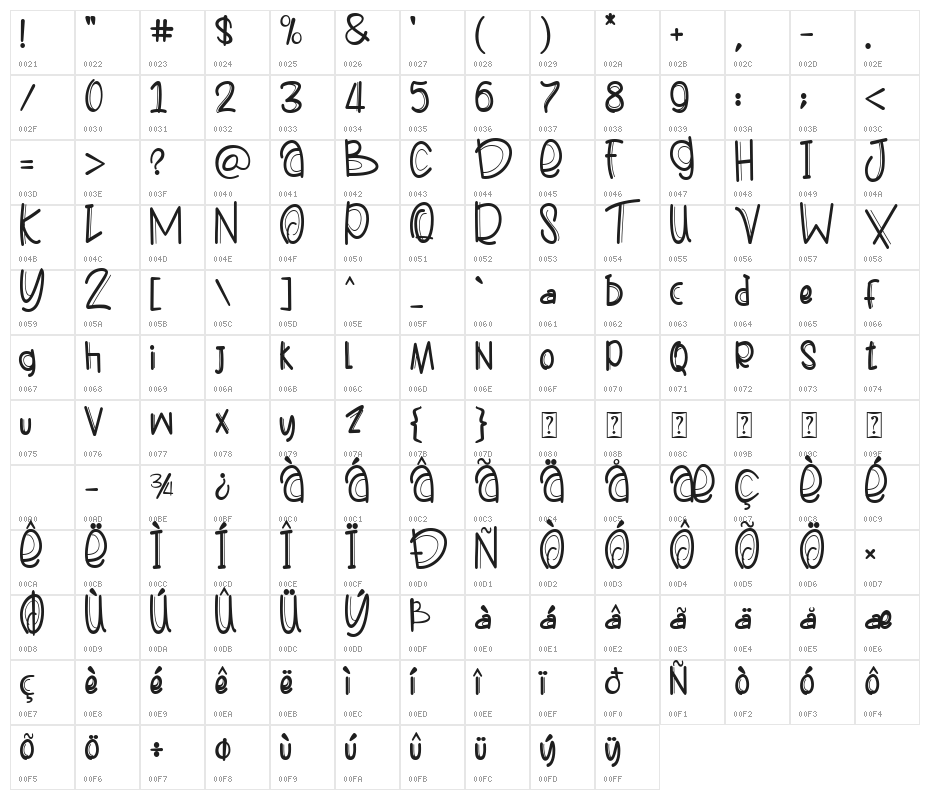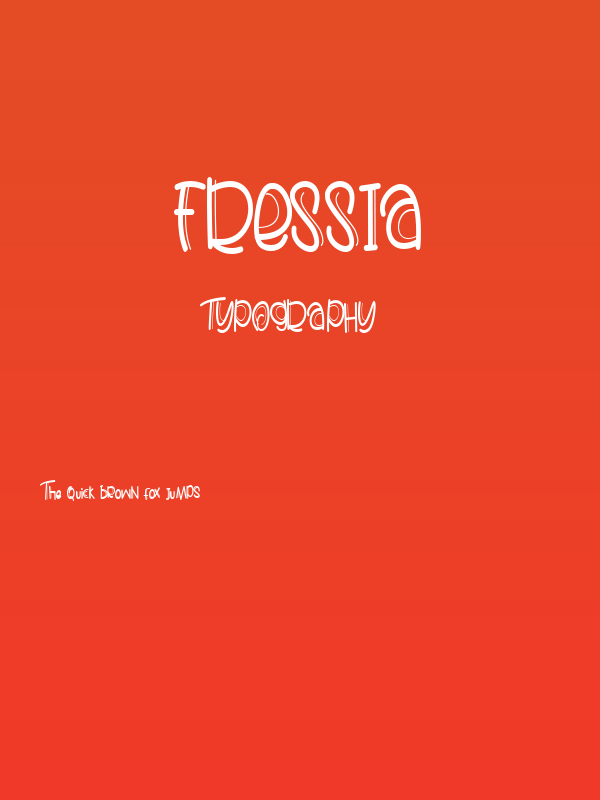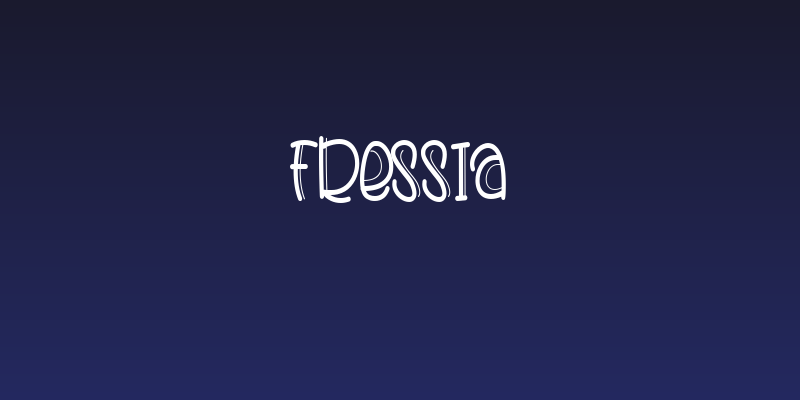
Fressia Font
Fressia Description
This font features a playful and whimsical style with a hand-drawn appearance. The characters are bold and rounded, giving a friendly and approachable feel. The uppercase and lowercase letters maintain a consistent height, while the numbers and special characters are designed to match the overall aesthetic. The strokes are thick and uniform, contributing to a cohesive look across all characters. This font is ideal for projects that require a fun and informal touch, such as children's books, greeting cards, or playful branding.
| Proposed Projects | Children's books, greeting cards, playful branding, informal invitations. |